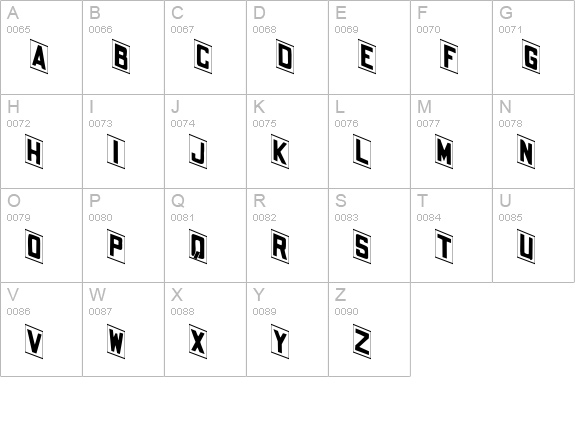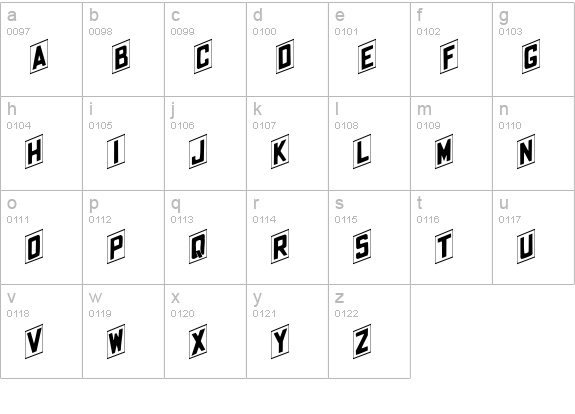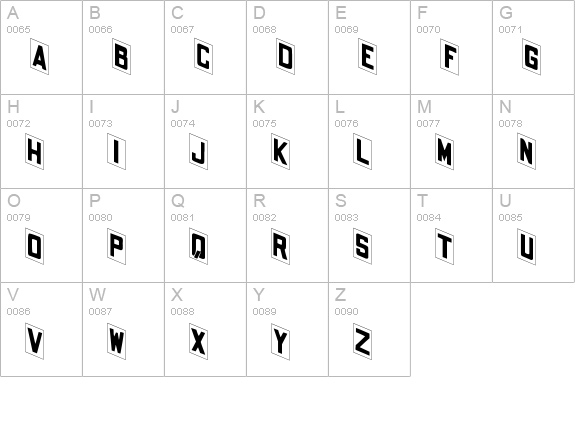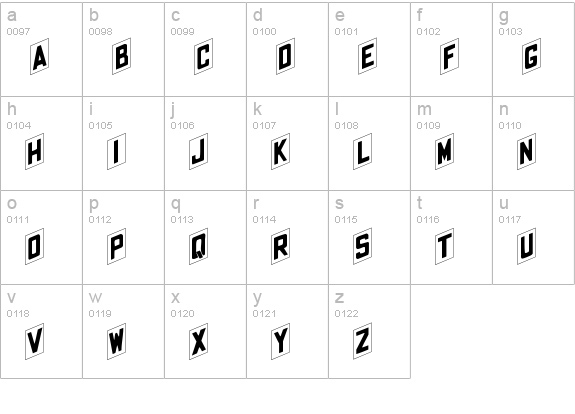
ShohlFold Font Details
Introducing ShohlFold, a captivating and versatile font that effortlessly combines elegance with a touch of modernity. Designed with meticulous attention to detail, this typeface exudes a unique charm that is sure to make a lasting impression on any project. ShohlFold offers a range of captivating letterforms, featuring graceful curves and sharp edges that add a sense of sophistication to your designs. Its versatility allows you to use it in a variety of contexts, from elegant wedding invitations to eye-catching logos, from stylish editorial layouts to trendy social media graphics. What sets ShohlFold apart is not only its impeccable design, but also its accessibility. This font is freely available to download at FontsMarket.com, ensuring that you can harness its creative potential without any constraints. Whether you're a professional designer or a passionate enthusiast, ShohlFold empowers you to express your ideas and bring your vision to life. With its extensive character set, ShohlFold supports multiple languages, making it a truly global font that can be used in projects around the world. Its legibility and readability ensure that your message is effortlessly conveyed, while its unique personality adds a touch of sophistication to every word. Compatible with both print and digital mediums, ShohlFold ensures that your designs look stunning across various platforms. Its clean lines and balanced proportions make it easy on the eyes, while its distinctive style sets it apart from the crowd. Unlock your creativity and elevate your designs with ShohlFold. Whether you're working on a branding project, an editorial layout, or a social media campaign, this font will undoubtedly leave a lasting impression. Download ShohlFold for free at FontsMarket.com and embark on a journey of endless possibilities.